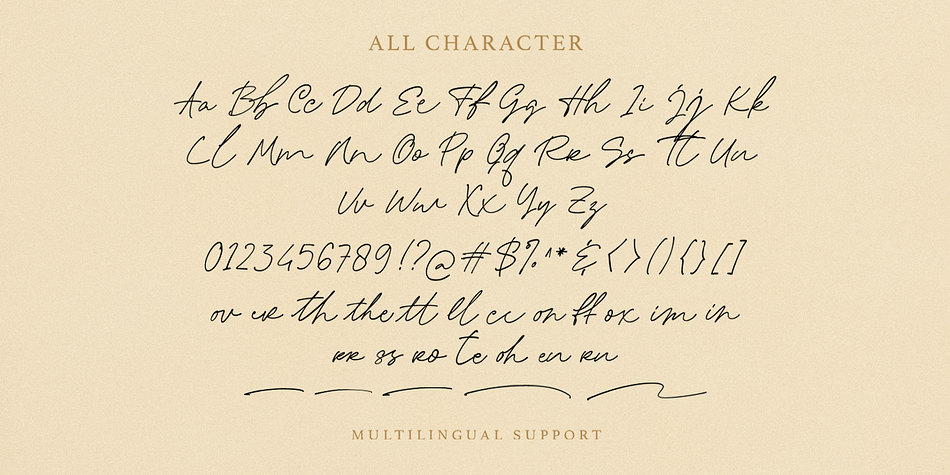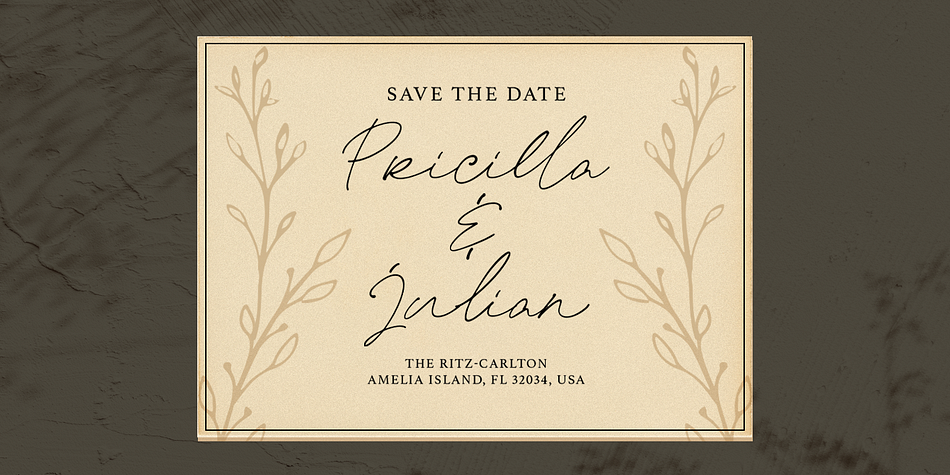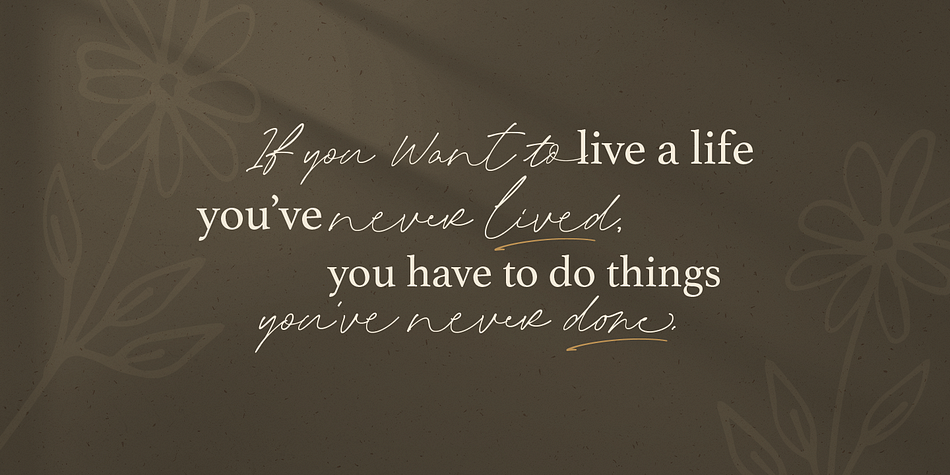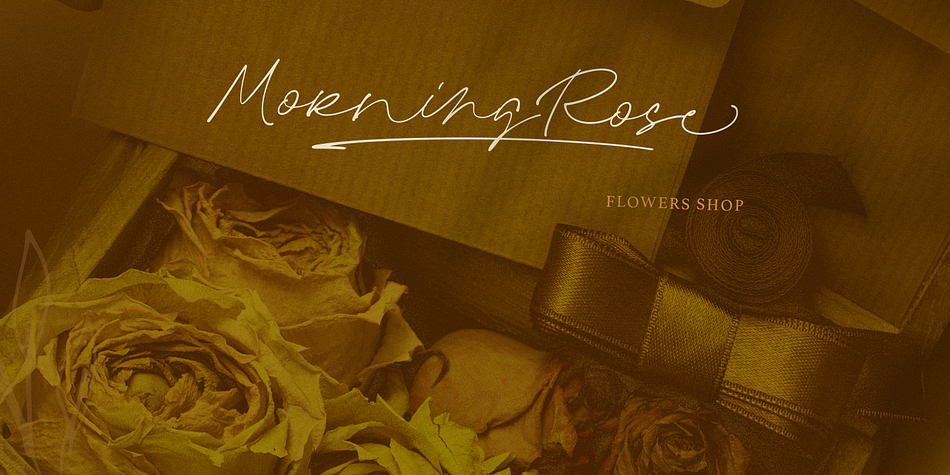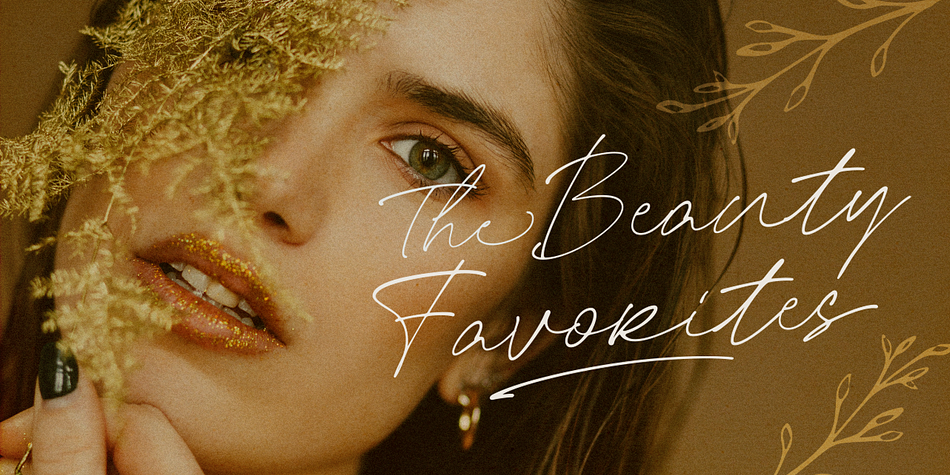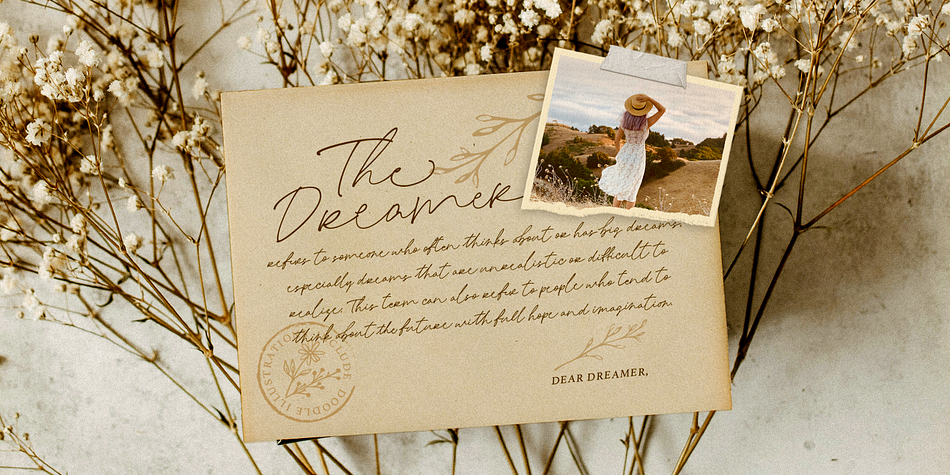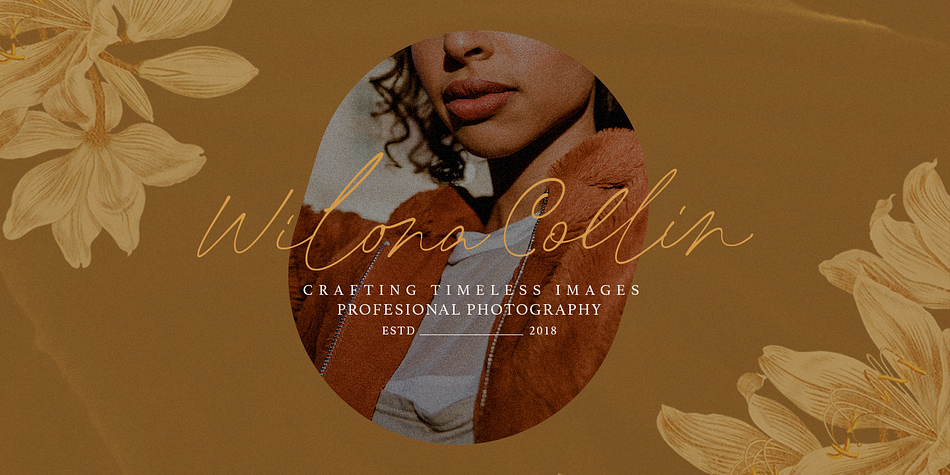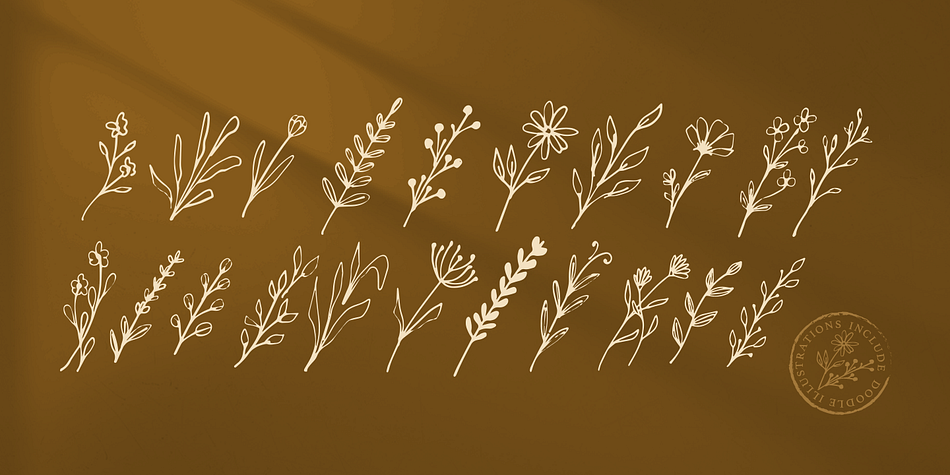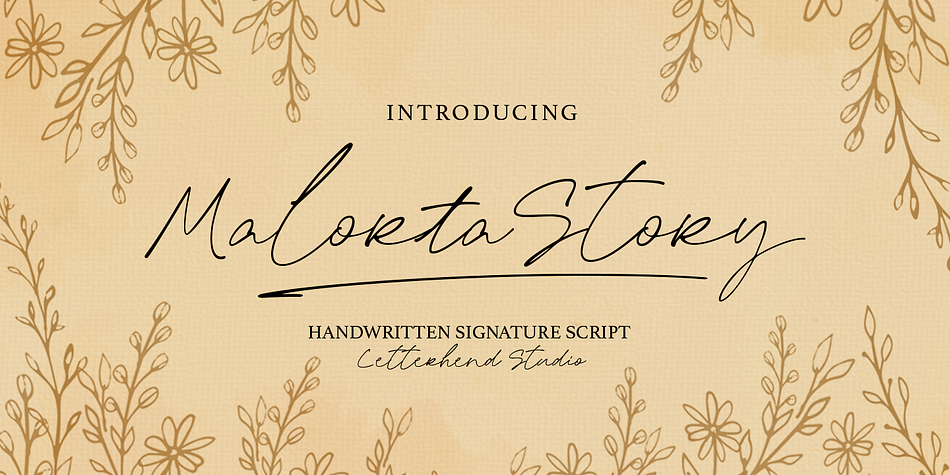
Malorta Story
Designed by Hendry Juanda, Malorta Story is a modern calligraphy and dingbat font family. This typeface has two styles and was published by Letterhend Studio.
Look, this is Malorta Story- a hammdwritten scipt that exudes effortless femininity and chic sophistication. It comes with flower dooddels. This font is perfect for adding a touch of elegance to any design project, especially in logo, and the other various formal forms such as invitations, labels, logos, magazines, books, greeting / wedding cards, packaging, fashion, make up, stationery, novels, labels or any type of advertising purpose.
- Alternates & Ligatures
- Multilingual Support